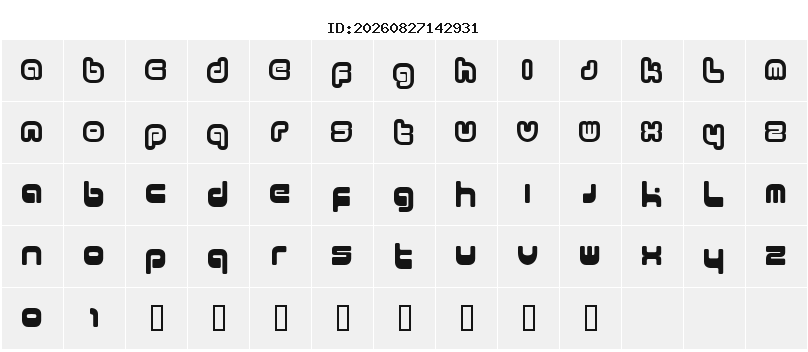
11.20 Preview
• Font Name: 11.20
• Full Font Name: 11.20
About 11.20.ttf
11.20.ttf is a modern, elegant sans-serif font designed for ultimate readability and visual harmony. Perfect for branding, headlines, web design, and print materials.